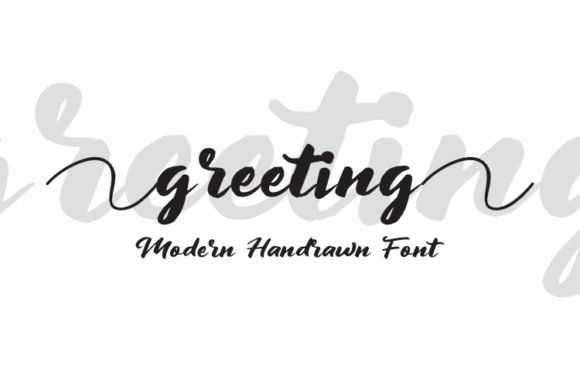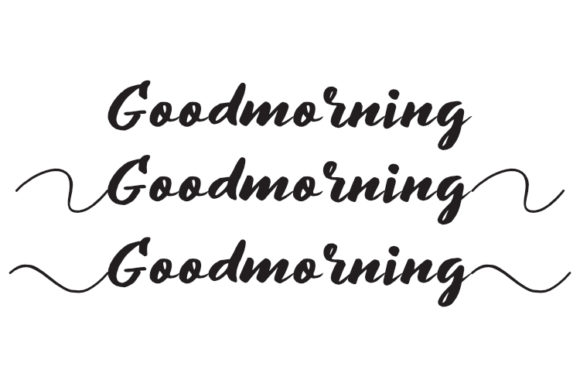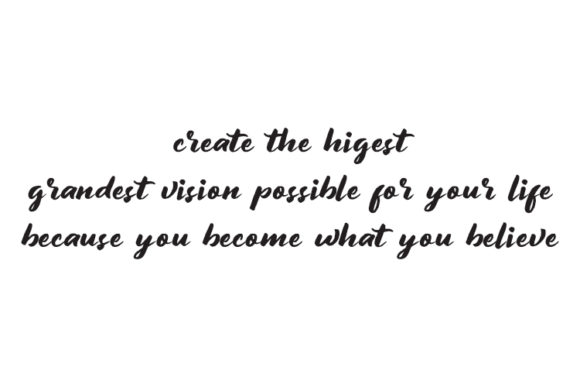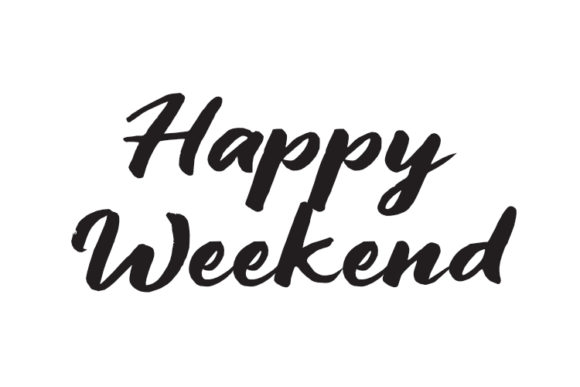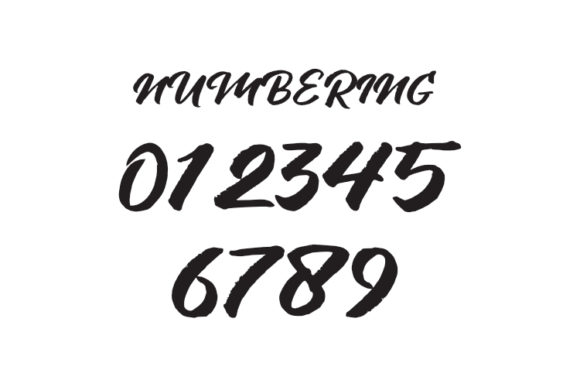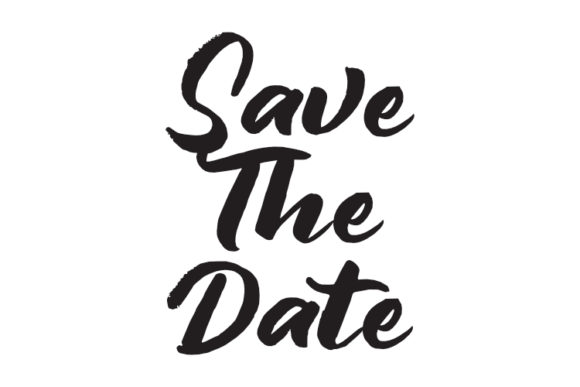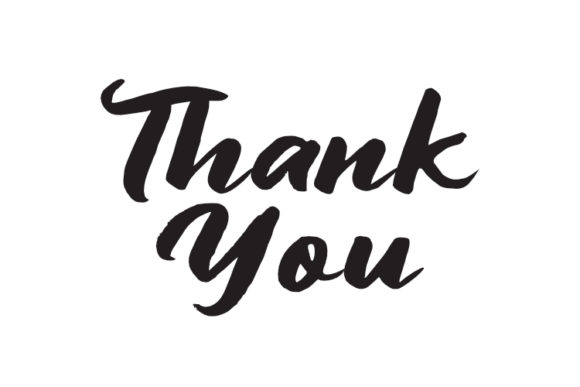
Bring Your Creations to Life with Greeting Font
You know that feeling when you’re crafting something special and the right font just makes it pop? It’s like the missing piece of a puzzle that suddenly brings everything together. For designers and crafty enthusiasts, finding the perfect font can be a game-changer.
That’s where Greeting Font comes in – a classic crafting font with an authentic feel that’s sure to elevate your next project. Whether you’re creating handmade cards, party decorations, or artwork, Greeting Font is the perfect addition to bring warmth and personality to your designs.
As a designer, you know how valuable it is to have a versatile and high-quality font at your fingertips. Greeting Font is a timeless choice that’s perfect for any project, and its authentic feel is sure to make it a staple in your design arsenal.
Greeting Font Key Features
- Unique Characteristics: Greeting Font features a unique blend of modern and classic elements, with intricate details and subtle flourishes that add a touch of elegance to any design.
Greeting Font Review
Overall, I think the Greeting Font is a solid choice for your next project. ✨ Here are some things it does well:
- It’s highly customizable, allowing you to fine-tune the spacing, size, and style to fit your needs.
- The font itself is clear and readable, making it perfect for headings, titles, or even body text.
However, there are some limitations to consider ⚠️:
- The font may not be as elegant or sophisticated as some other options, which could be a drawback if you’re going for a high-end or premium look.
- It may not be suitable for complex or technical writing, as the font’s clarity and readability can sometimes come at the expense of nuance and subtlety.
- The font’s versatility is also its biggest weakness – it’s so versatile that it can sometimes feel generic or unremarkable.
Overall, I’d say the Greeting Font is a safe, solid choice for most projects. It’s not going to blow you away with its creativity or originality, but it gets the job done – and that’s exactly what you need sometimes.